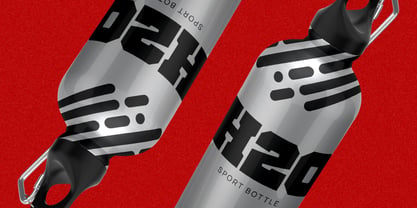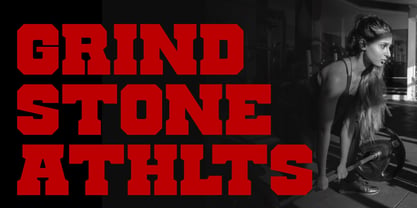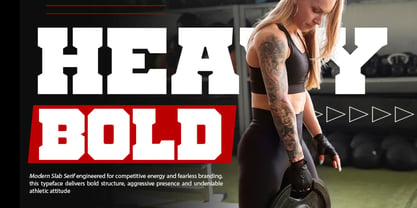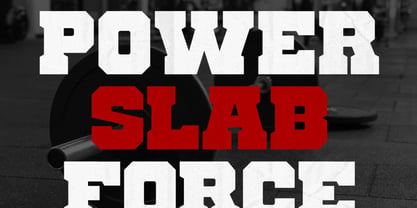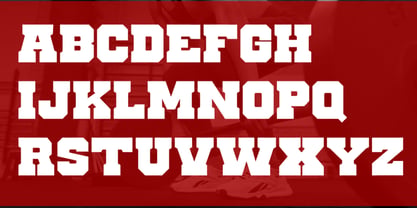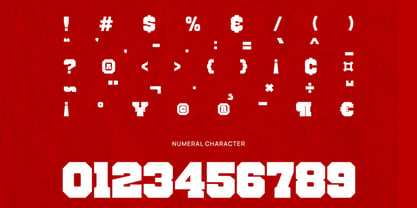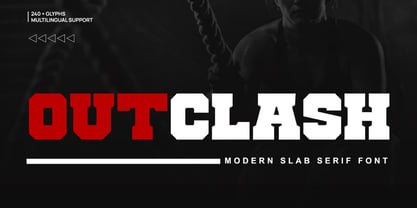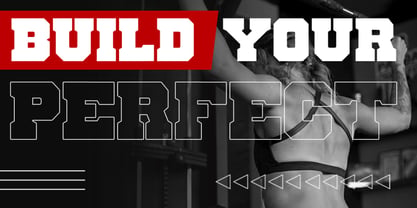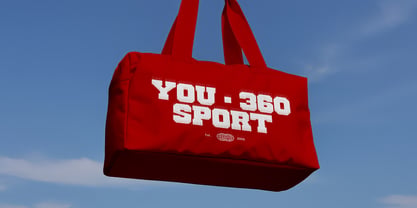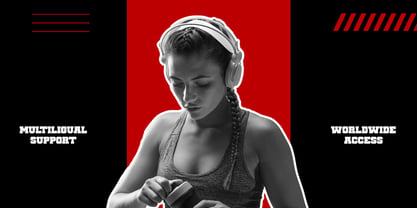
Outclash
The Outclash Font Family was designed by Fajar Indra and published by Rasio Studio. Outclash contains 1 styles. More about this family
Outclash is a bold modern slab serif font designed with a strong athletic character and powerful visual impact. Featuring thick block-style letterforms, sharp slab terminals, and confident proportions, this typeface delivers a competitive, sport-driven presence across headlines and branding materials. Outclash is highly relevant for sports branding, gym promotions, team merchandise, esports graphics, athletic apparel design, bold logo creation, event posters, fitness campaigns, and strong headline layouts that require an impactful and competitive visual tone.